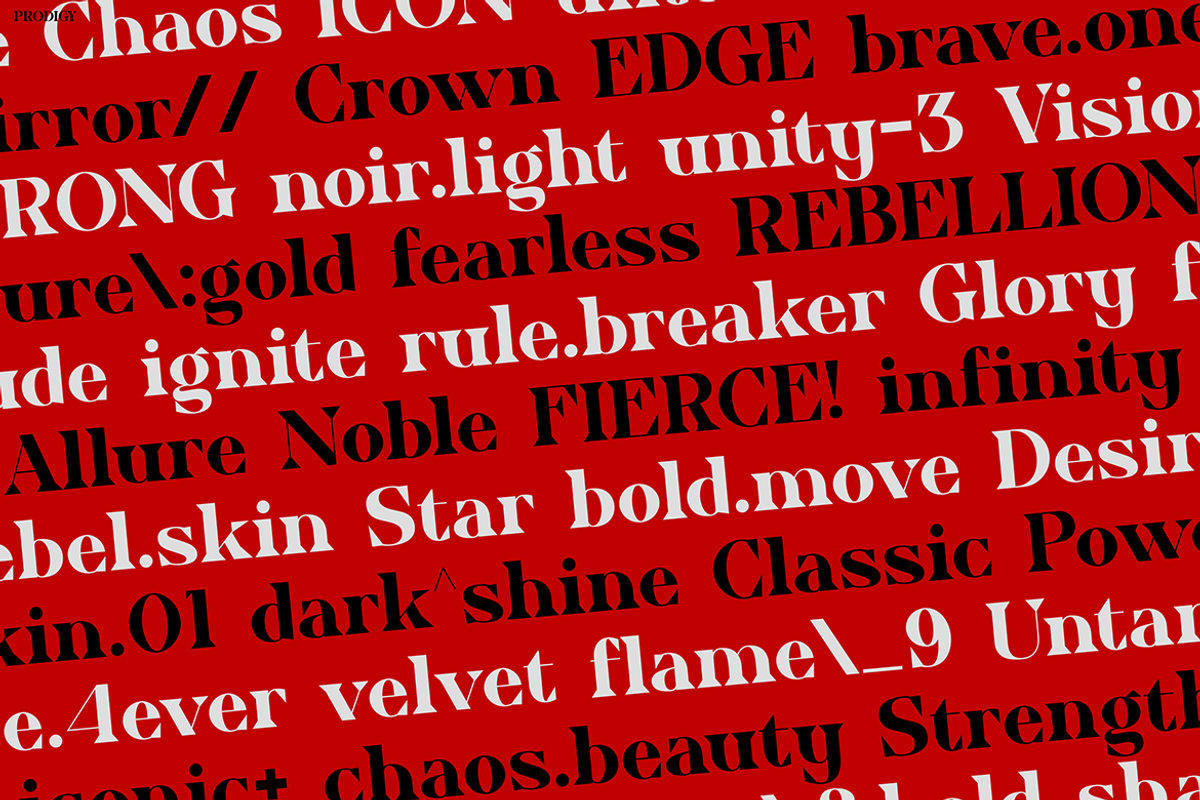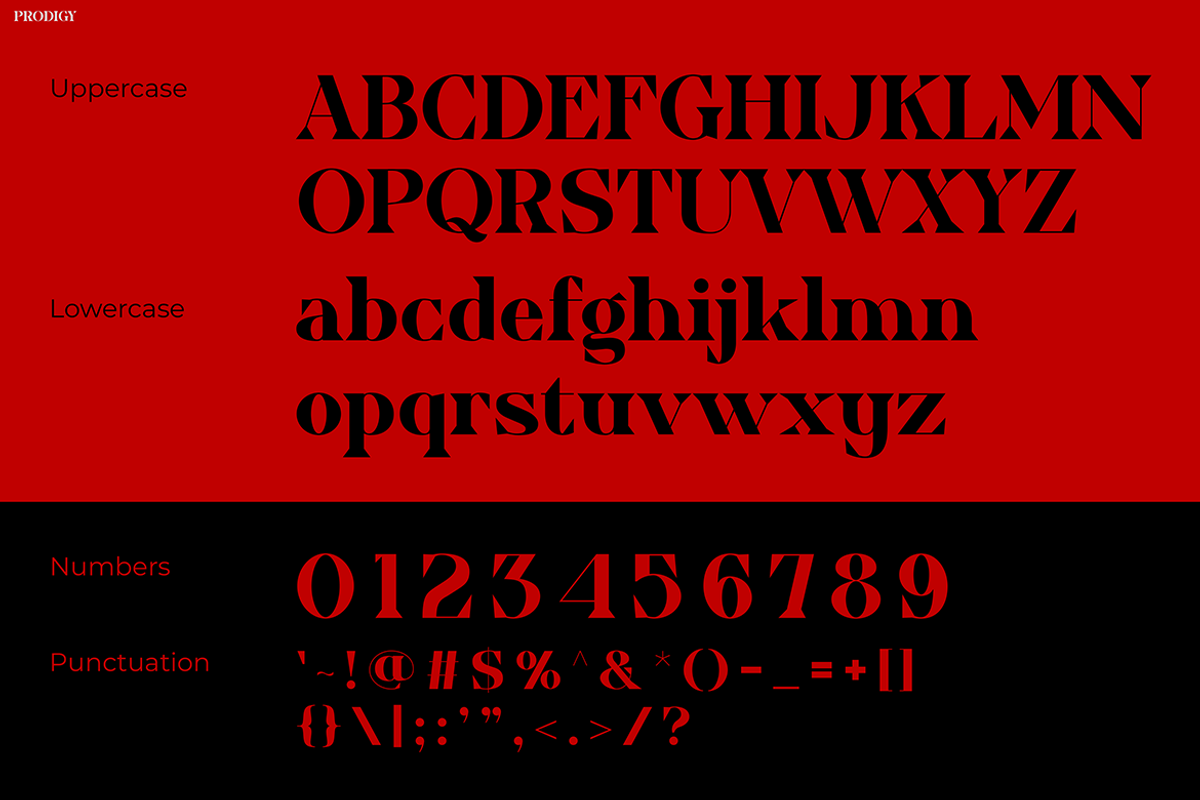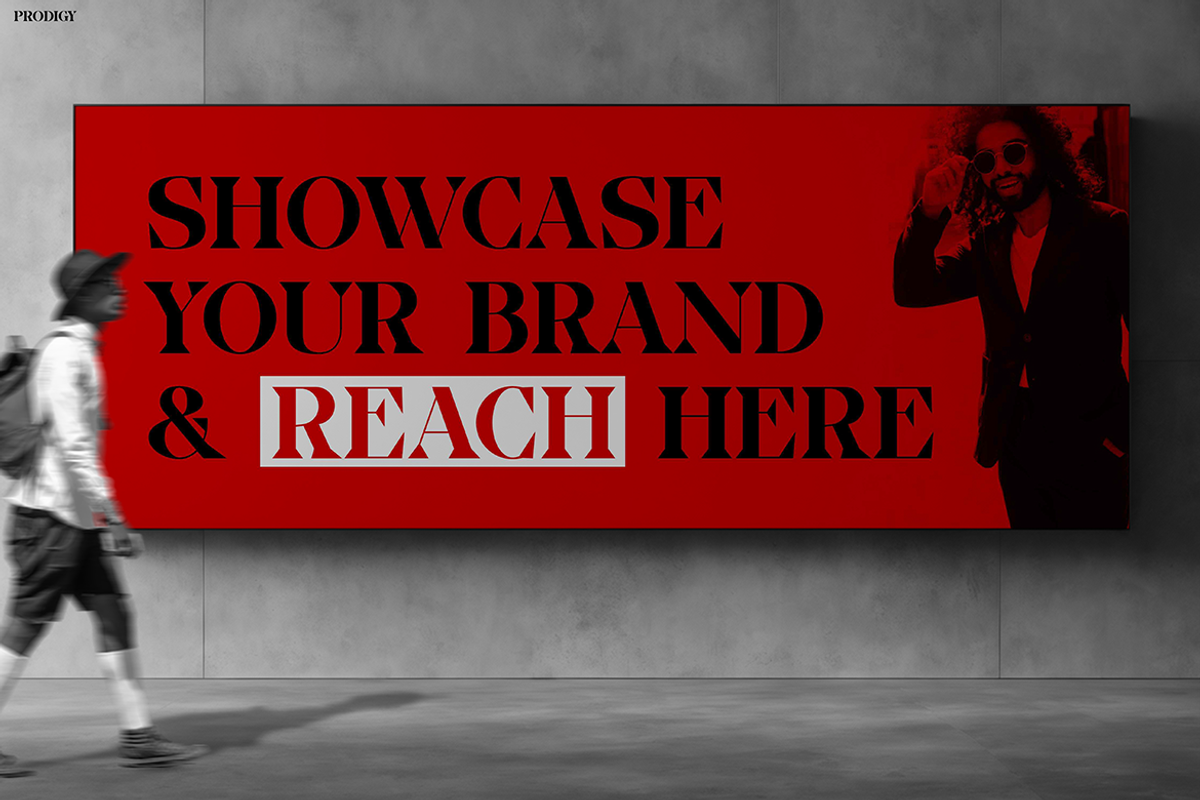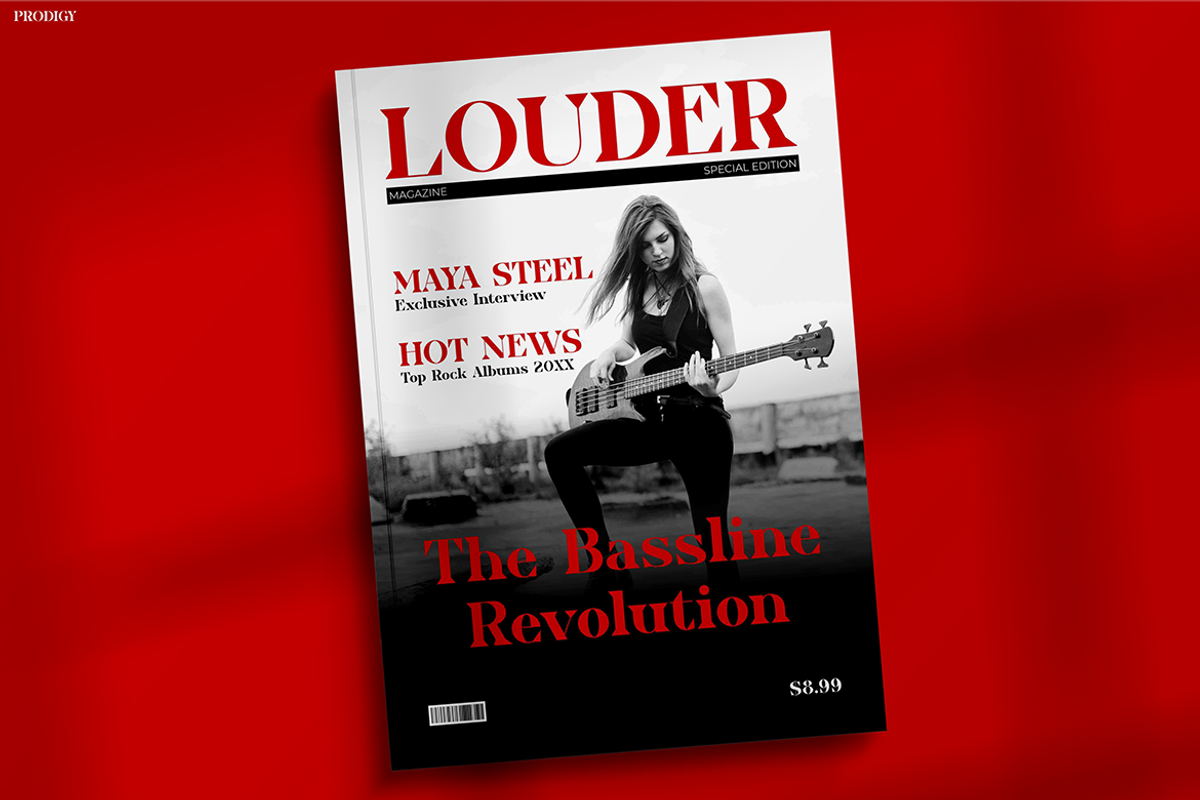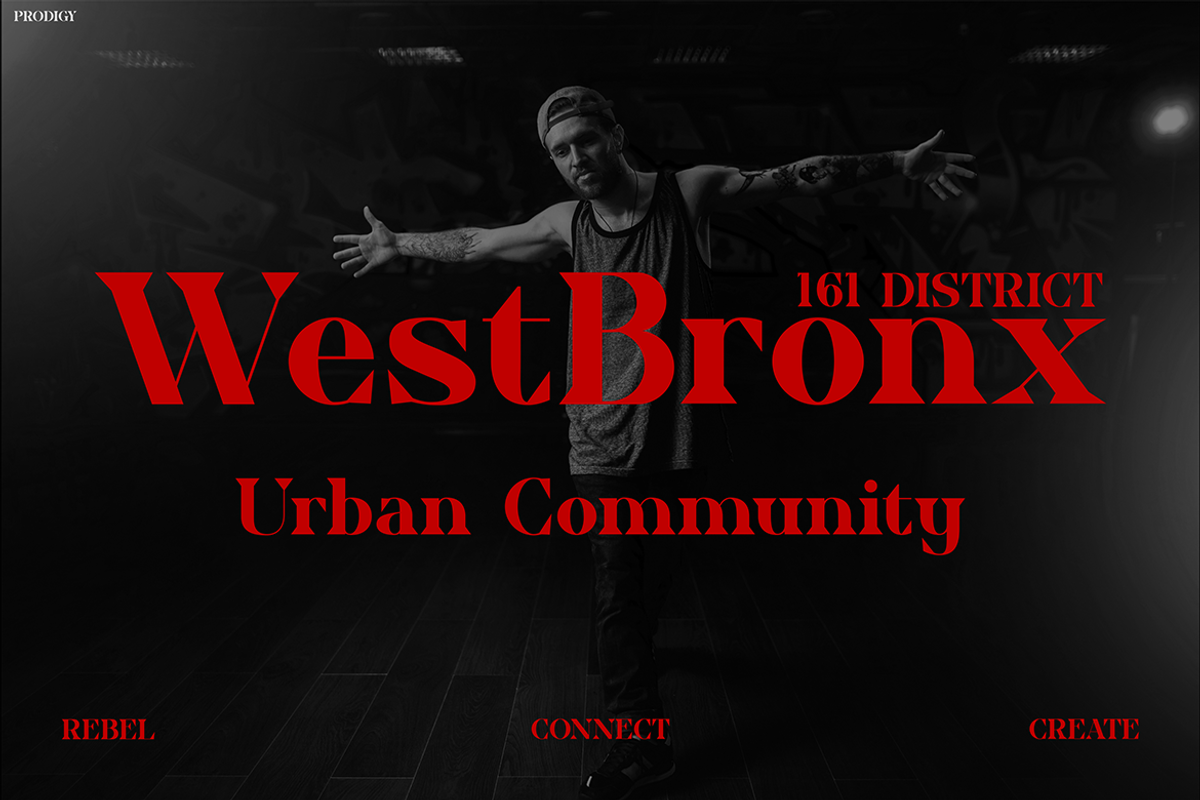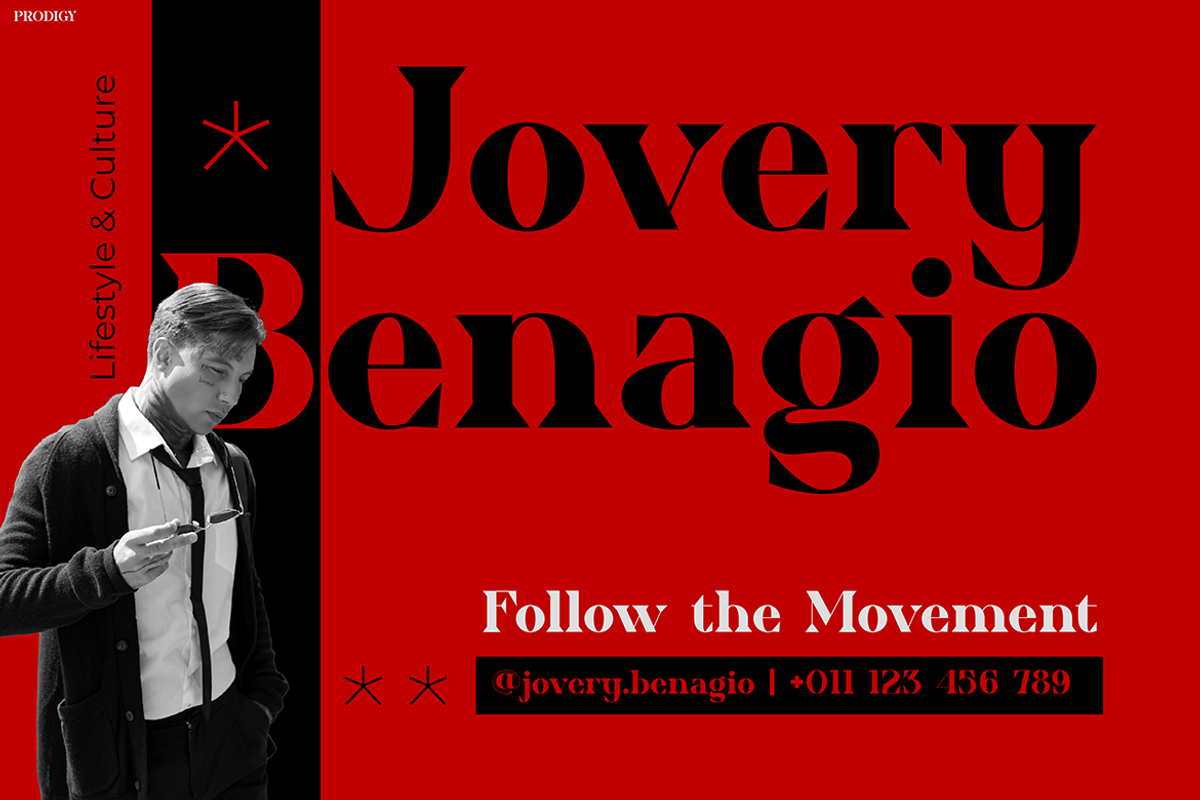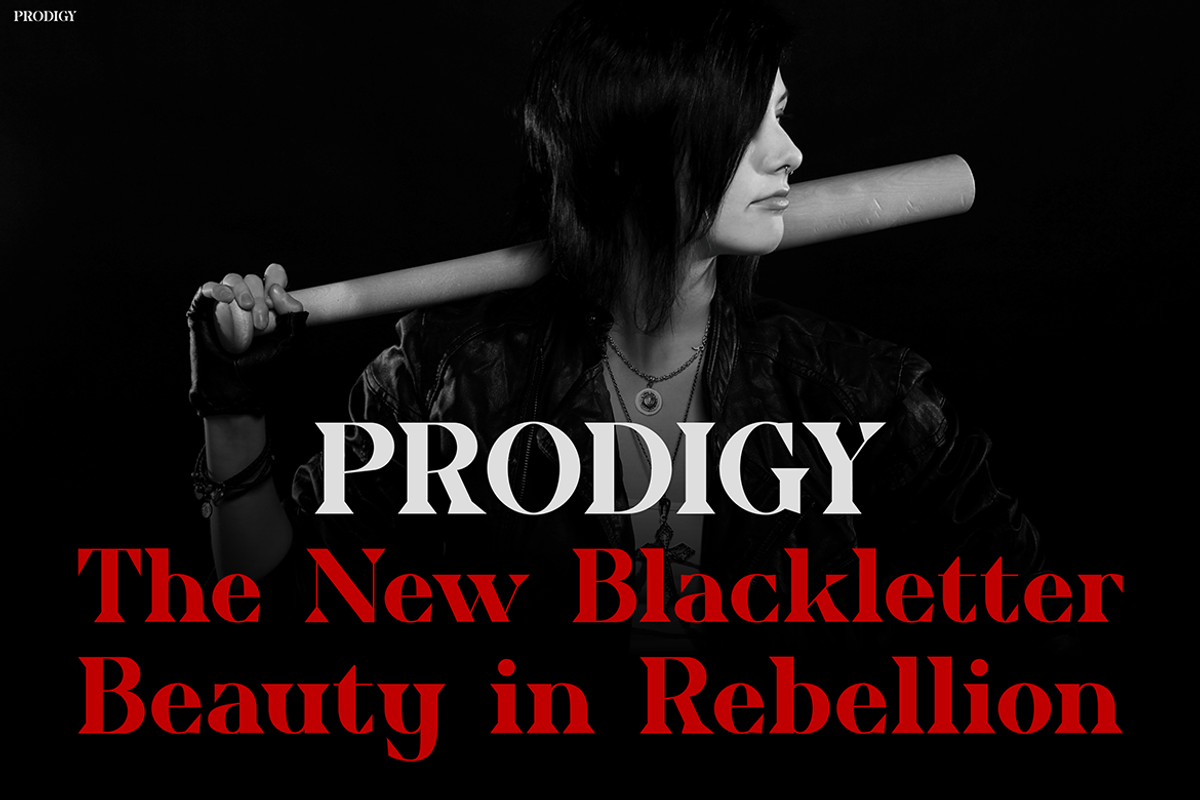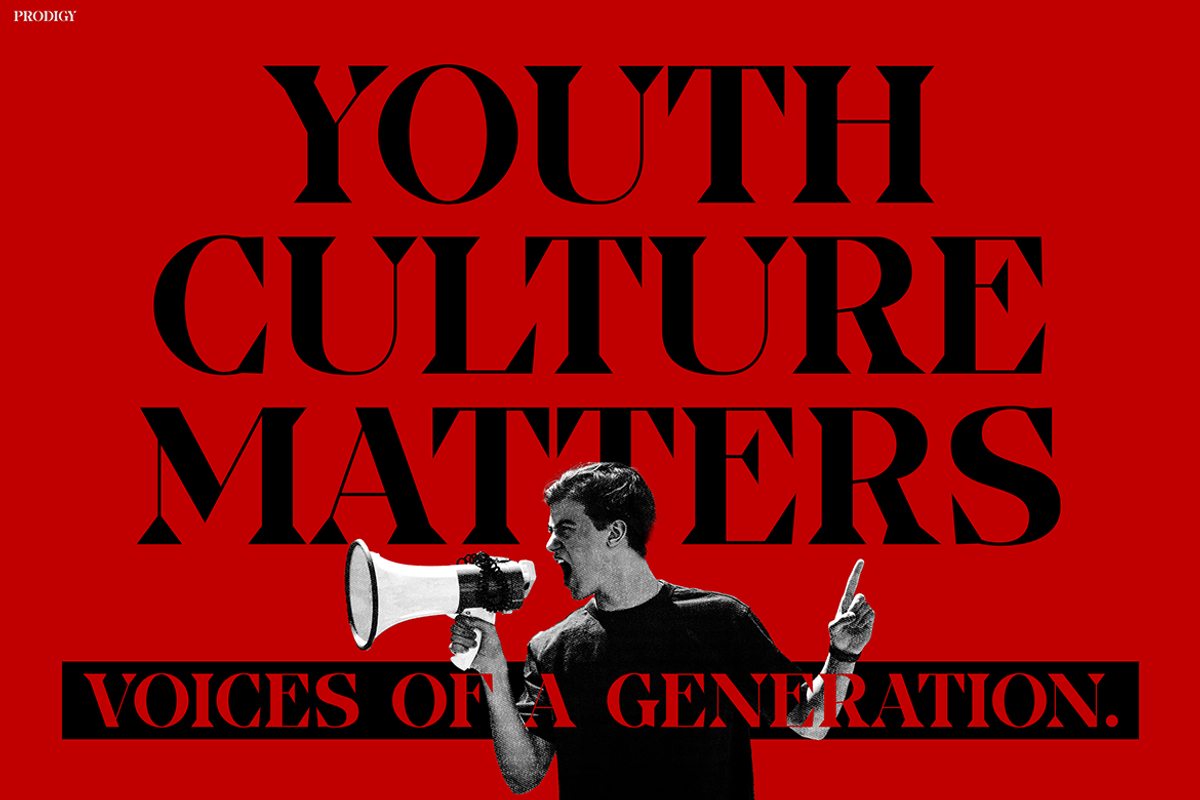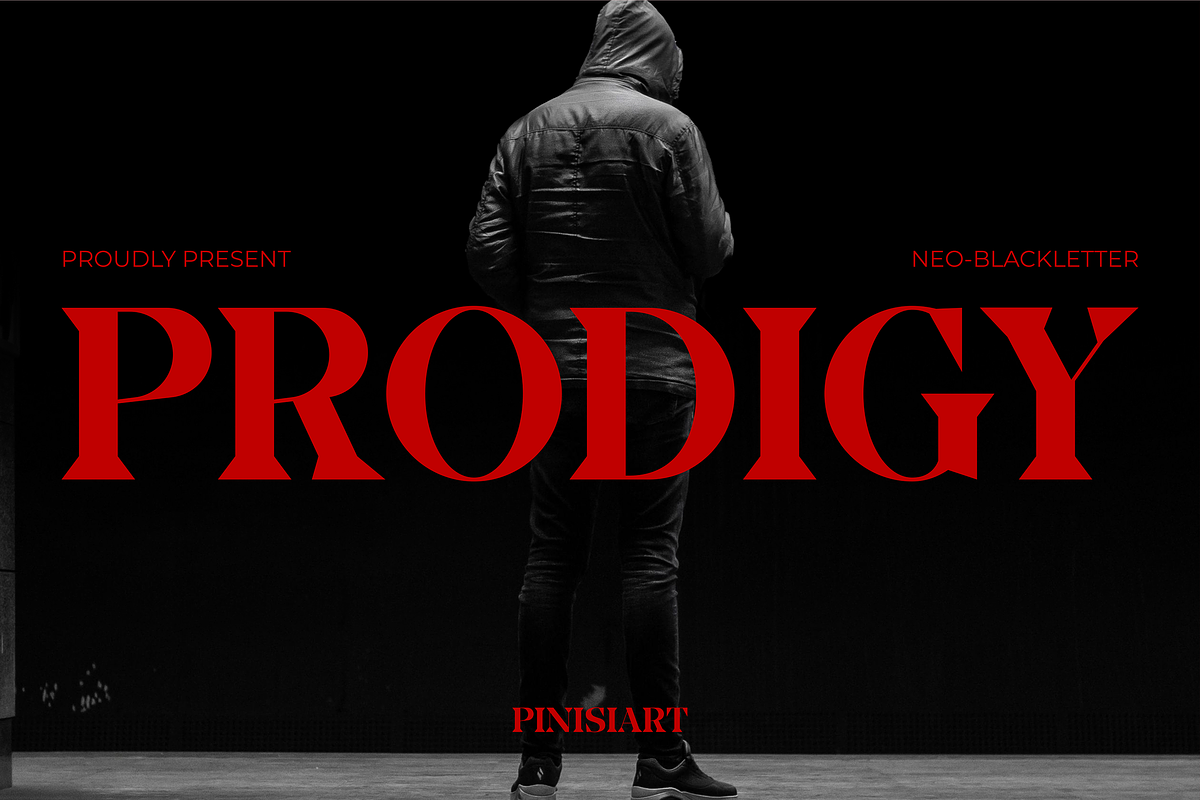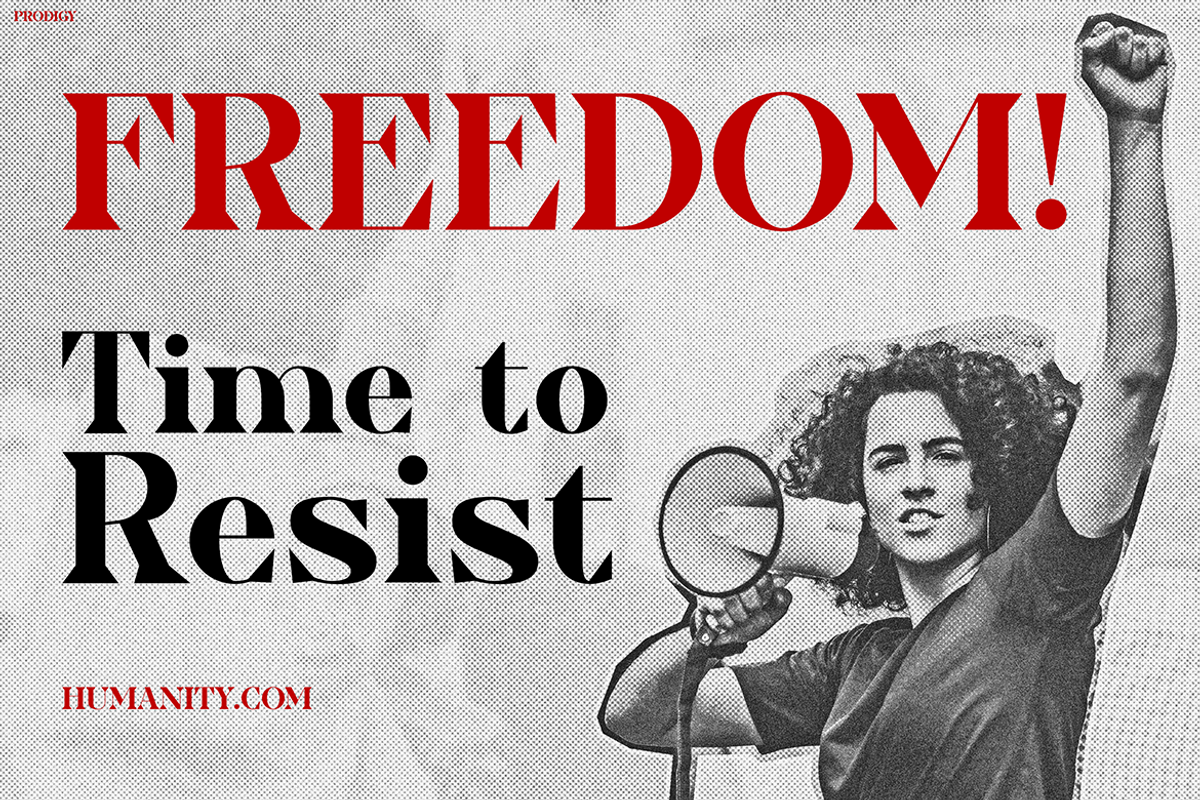
Prodigy
Tattoo Font Prodigy is a striking typeface that combines power, beauty, and personality. It draws inspiration from blackletter traditions, yet carries a modern rebellious spirit. The bold structure, sharp serifs, and dramatic strokes create a unique balance of elegance and strength. Moreover, each letterform is designed to stand out, ensuring your message looks clear and unforgettable.
This font is not only stylish but also versatile. It works for digital designs, print layouts, and bold branding projects. In addition, Tattoo Font Prodigy creates impact in posters, packaging, or even merchandise designs. As a result, it becomes a perfect tool for anyone who wants to grab attention quickly.
Furthermore, the font adapts easily across themes. It can look edgy for music promotions, yet refined for fashion branding. For example, a streetwear label can use it to show authenticity, while a magazine can use it for bold covers. Therefore, Prodigy saves time for designers who want both style and flexibility.